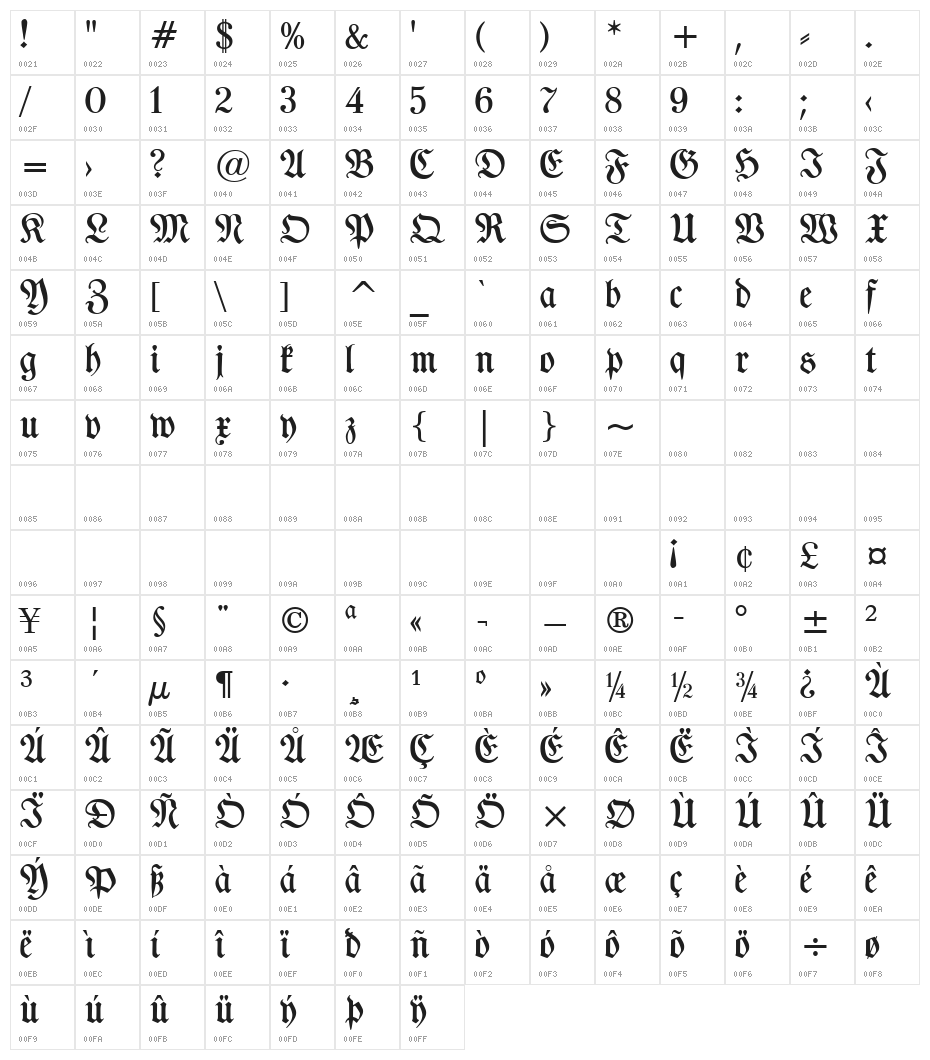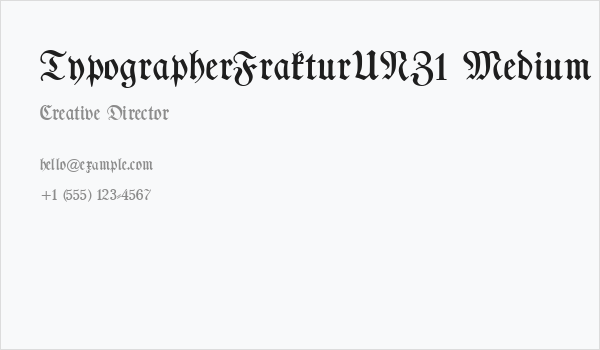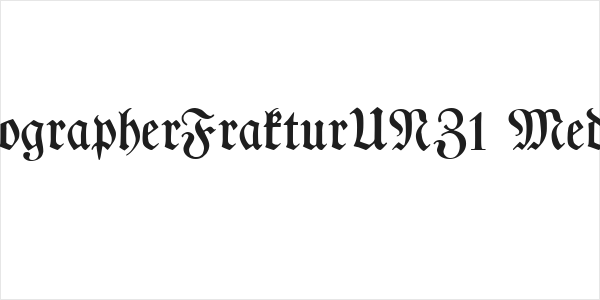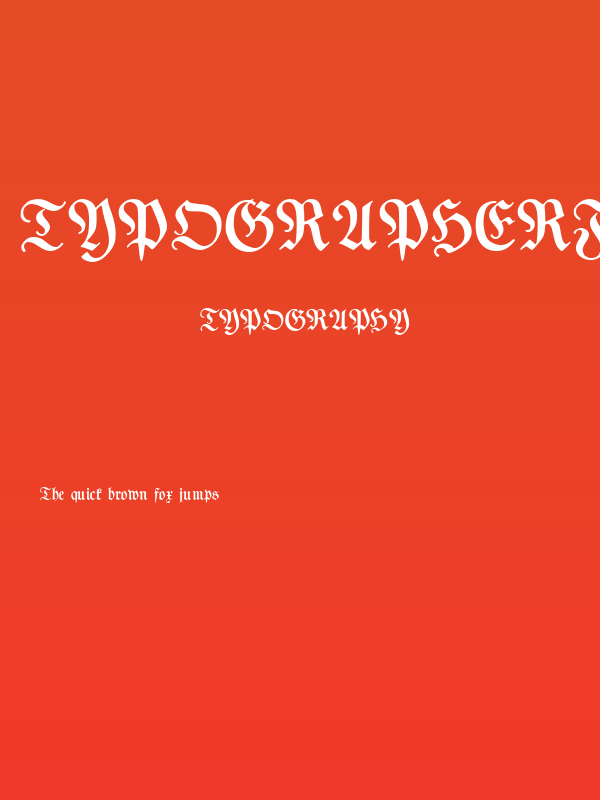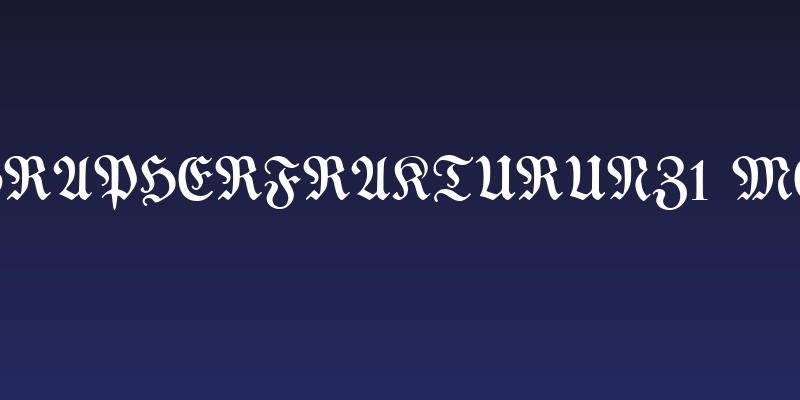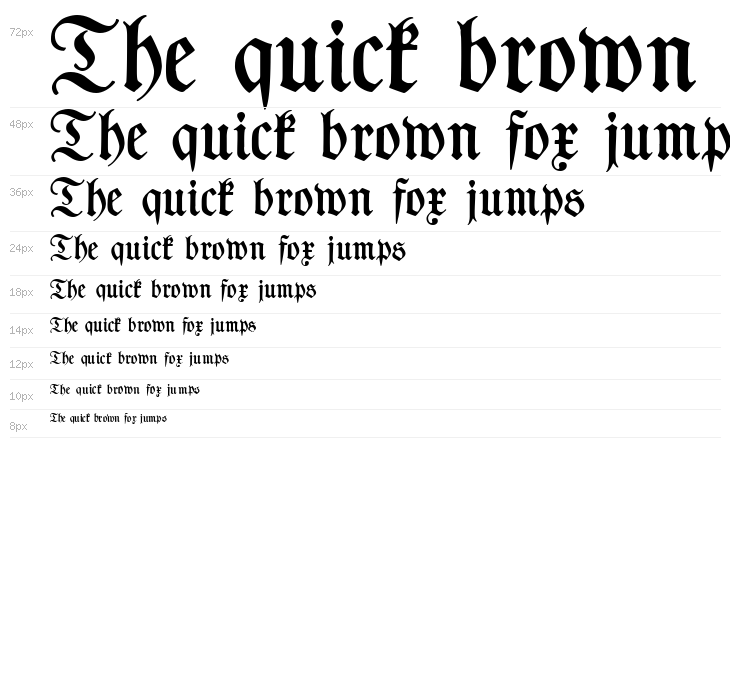
TypographerFrakturUNZ1 Medium Font
TypographerFrakturUNZ1 Medium Description
This font features a classic blackletter style with intricate, ornate details that are reminiscent of medieval script. The uppercase letters are characterized by sharp, angular lines and elaborate flourishes, giving them a dramatic and historical appearance. The lowercase letters maintain the same decorative style, with a slightly more rounded form that enhances readability. Numbers and special characters are designed to match the overall aesthetic, with bold strokes and unique shapes that add to the font's distinct personality. This typeface is ideal for projects that require a touch of elegance and tradition, such as invitations, certificates, or branding for luxury products.
| Proposed Projects | Ideal for wedding invitations, historical documents, luxury branding, and decorative signage. |